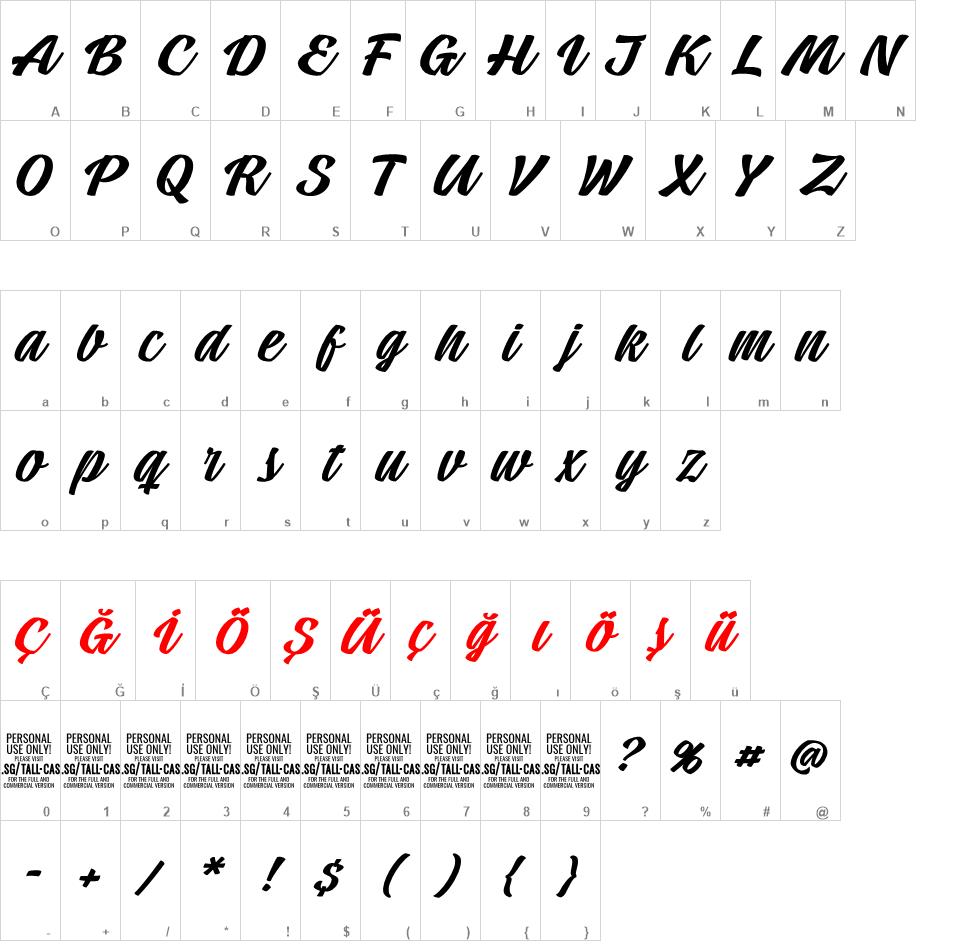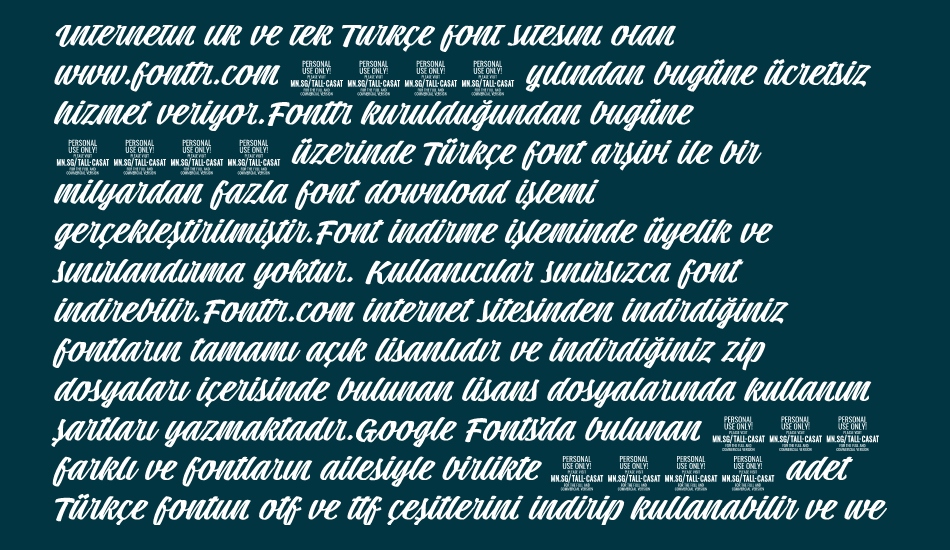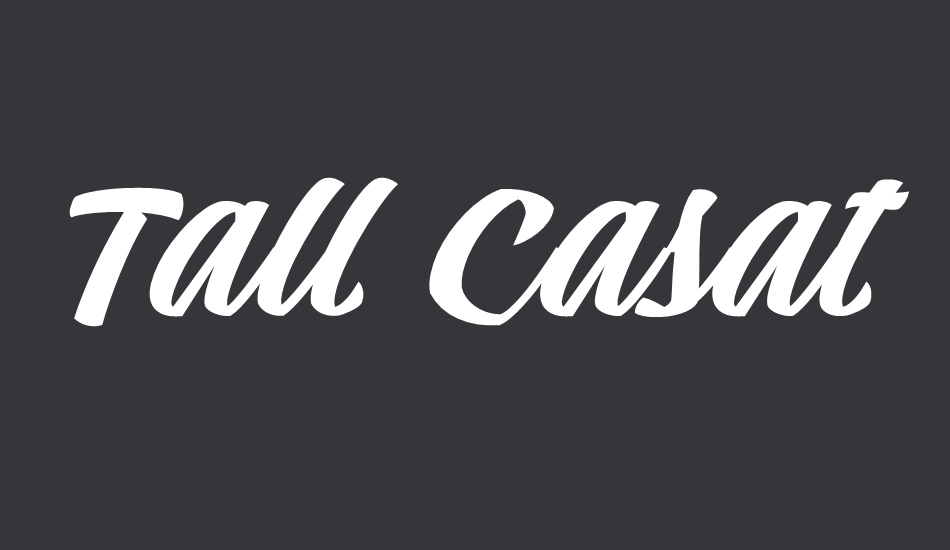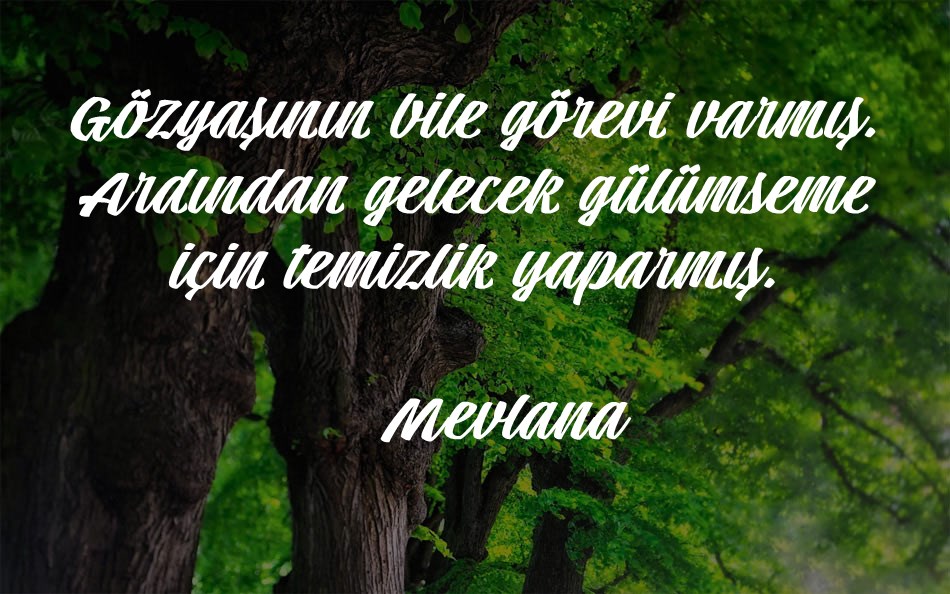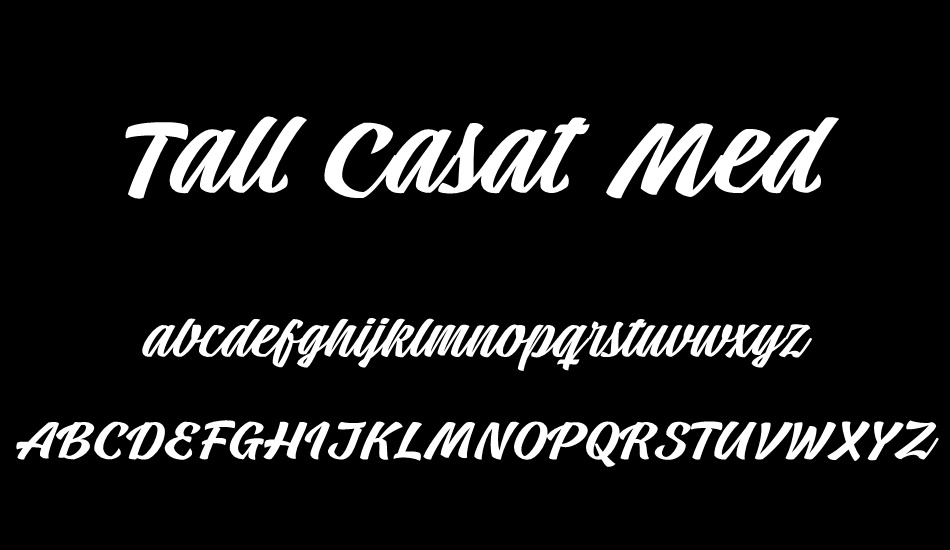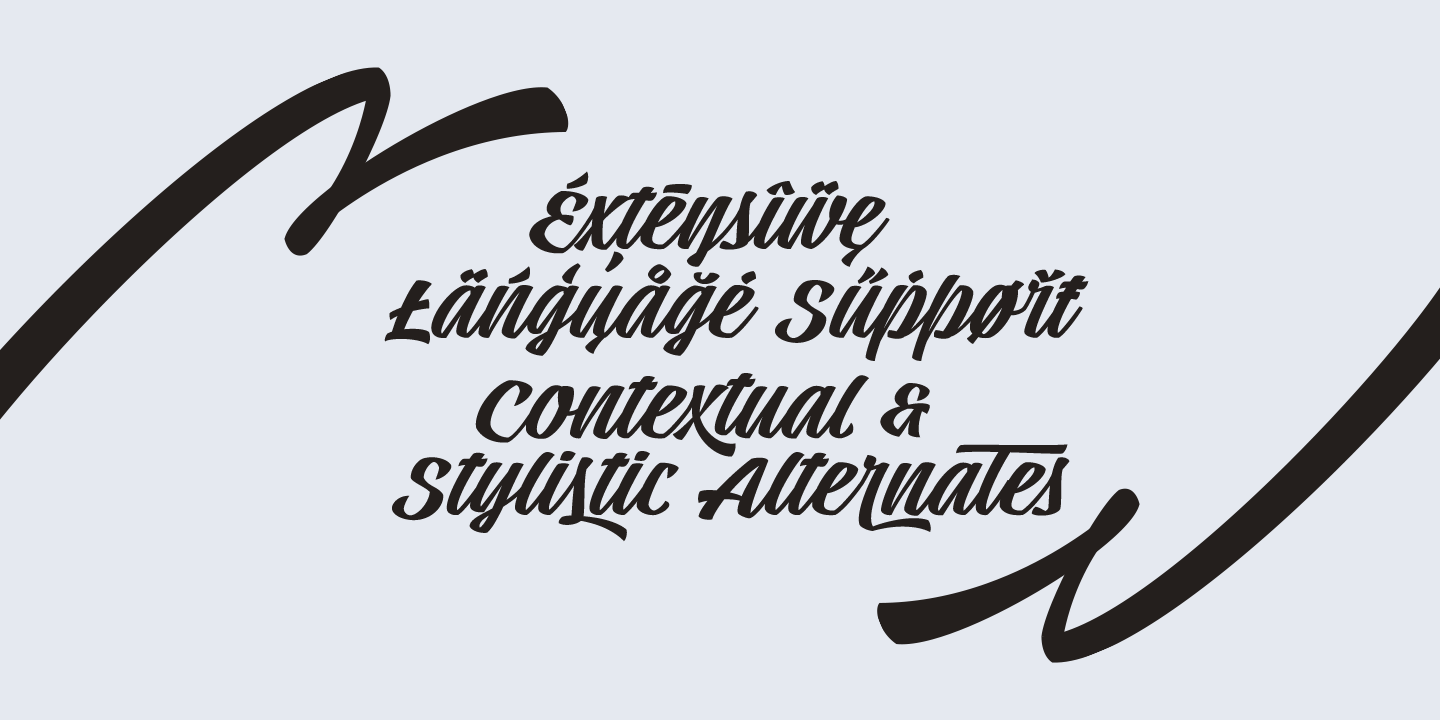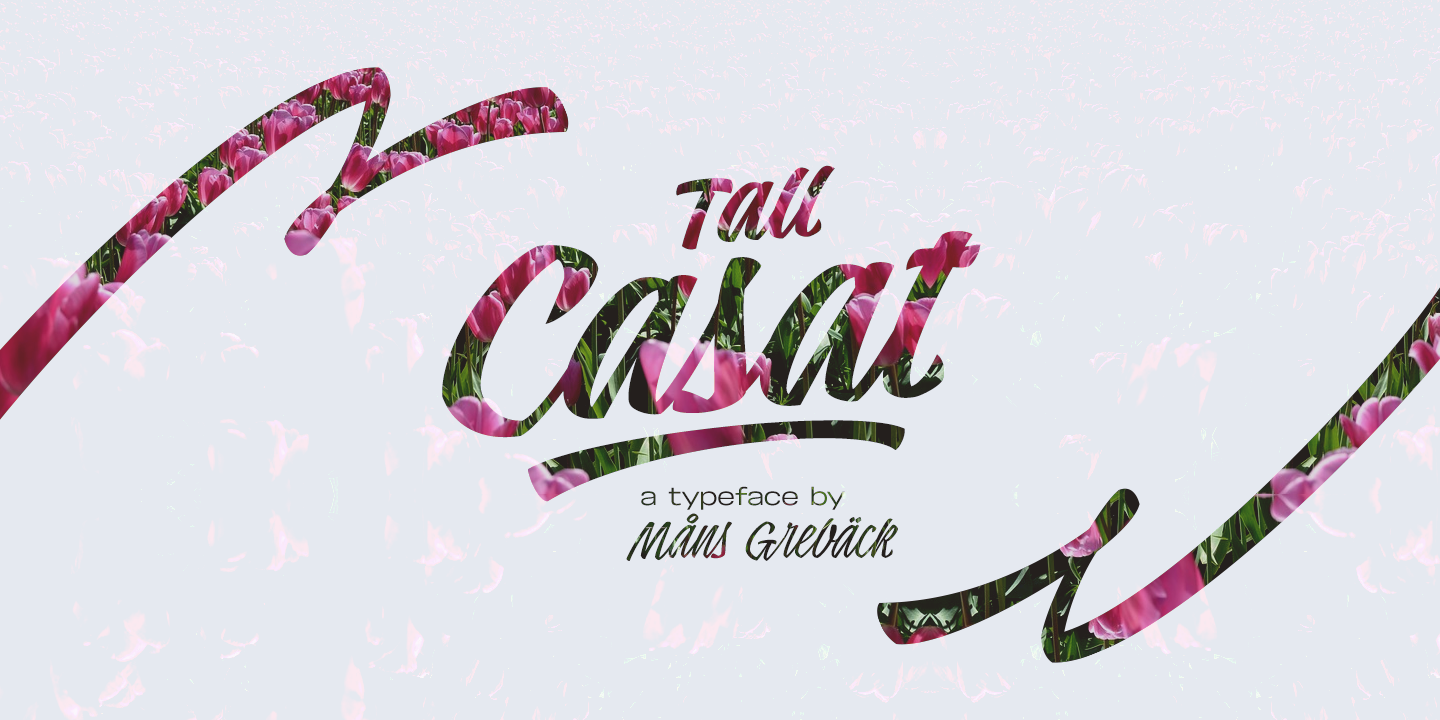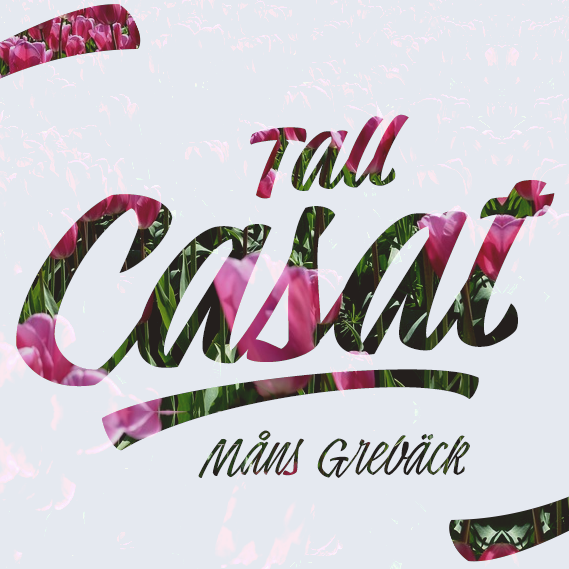
Tall Casat font
Use § after a word to make a swash. Example: Casat§
To make different types of swashes, write § followed by 1-9. Example: Casat§6
Tall Casat font
Tall Casat is a attention-grabbing script family.
The typeface is an original creation by M?ns Greb?ck, built during 2017.
Its five weight has been carefully designed and gives great variation to the font family:
Tall Casat Thin, Tall Casat Light, Tall Casat Med, Tall Casat Bold and Tall Casat Fat.
The font also contains multiple extra OpenType features; including a set of
stylistic alternate characters, a swash alternate alphabet, small caps,
initial and final versions of all letters, ornaments and ligatures.
With its hundreds of glyphs, Tall Casat supports a very wide range of languages.
Use ? after a word to make a swash. Example: Casat?
To make different types of swashes, write ? followed by 1-9. Example: Casat?6